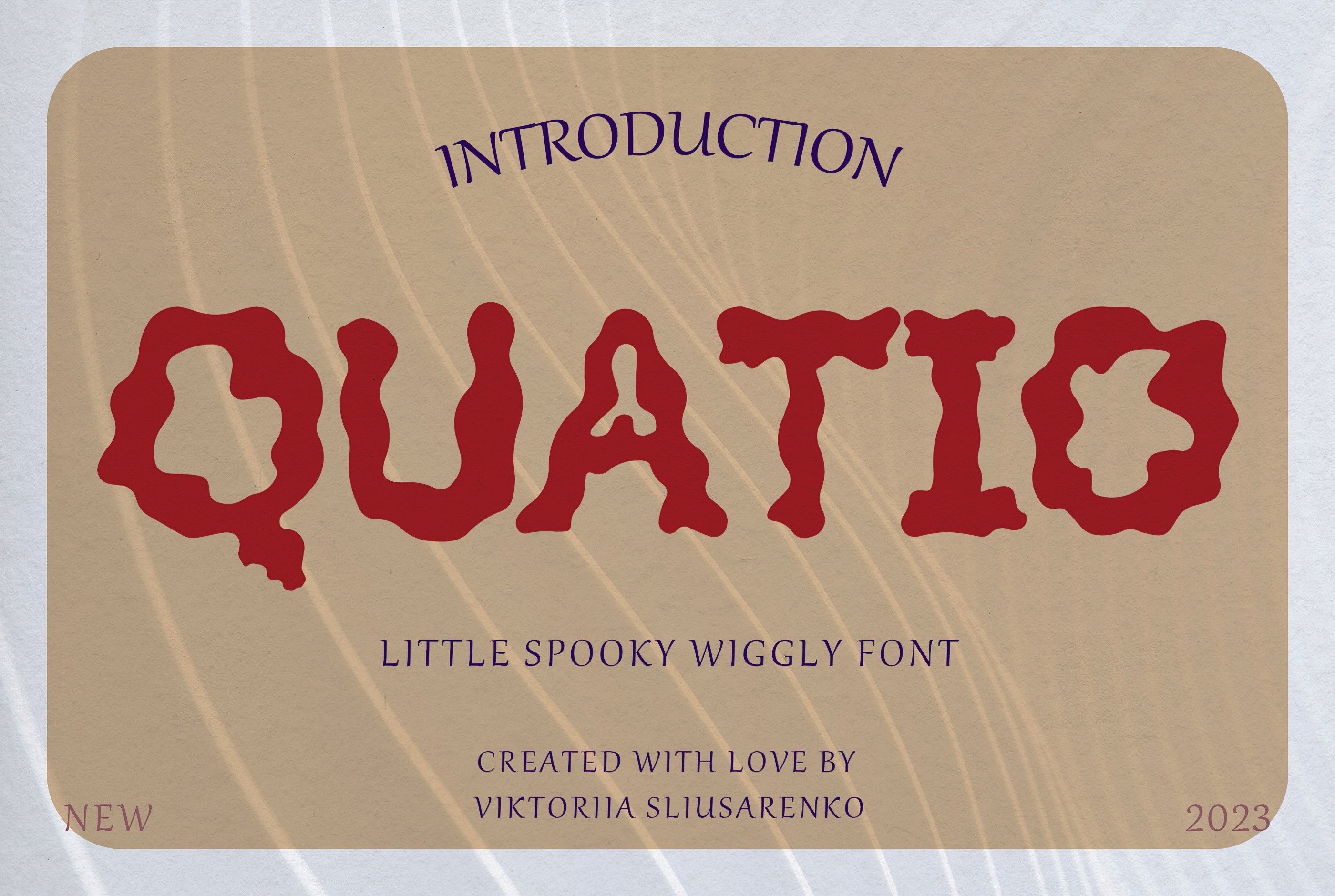
QUATIO wiggly font
Introducing Quatio, a font, typography, calligraphy, and hand-lettered masterpiece that adds a delightful and lively touch to your design projects. Its vector format showcases a unique and captivating wavy appearance, with smooth lines that exude a sense of motion and vibrancy. The font incorporates sharp elements strategically, creating a dynamic visual impact that captures attention.
Whether you're crafting a logo for a creative agency or producing lively social media graphics for a playful campaign, Quatio guarantees to infuse your designs with a delightful blend of amusement and individuality.
Embrace the whimsical charm of Quatio and let it unleash its enchanting power in your creative projects. Experience the joy and personality that comes with this remarkable font, elevating your designs to new levels of creativity and expression.